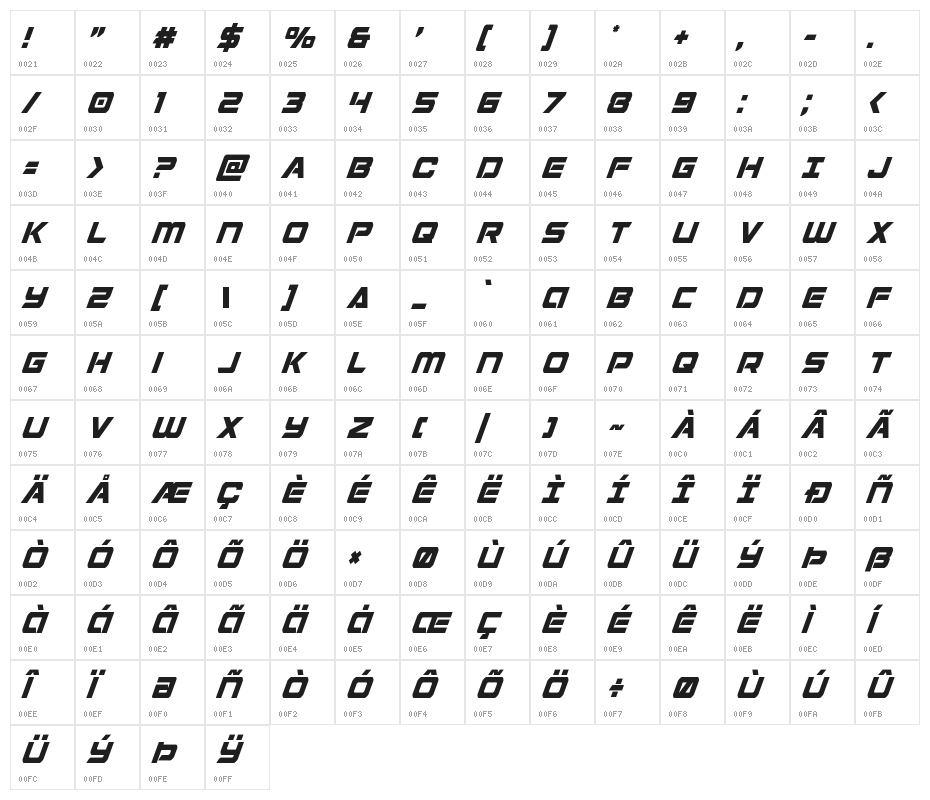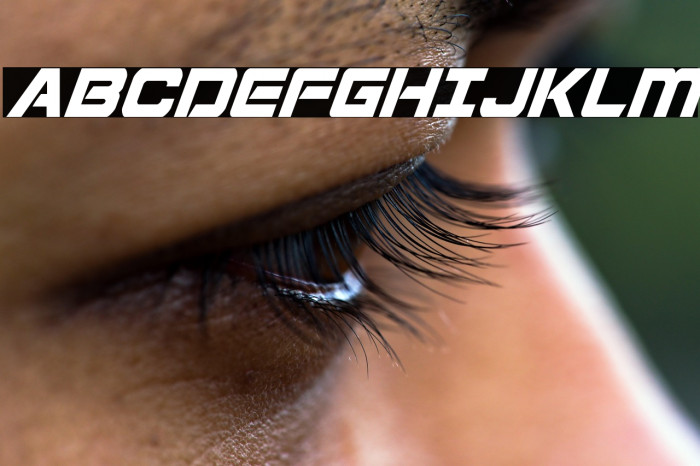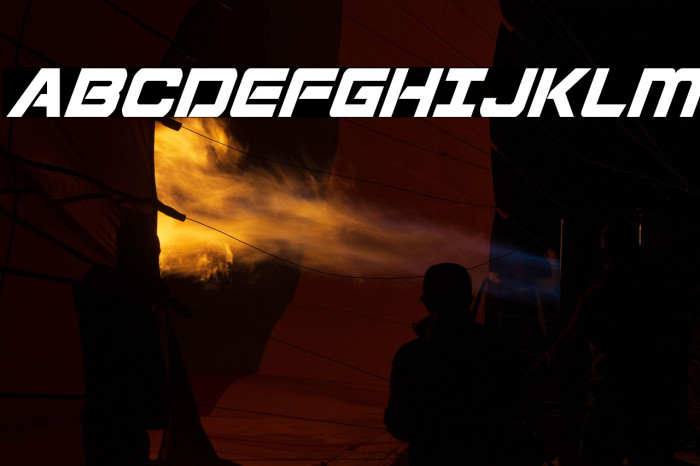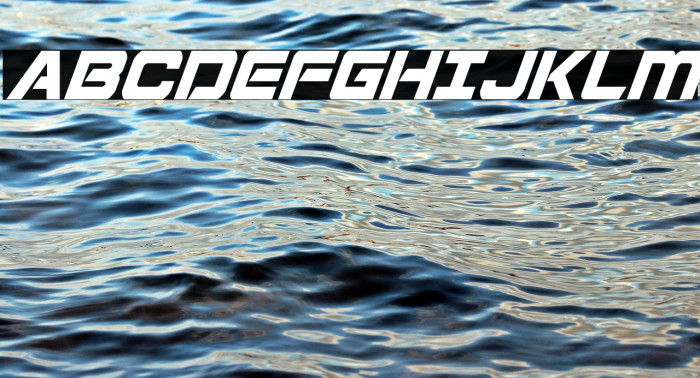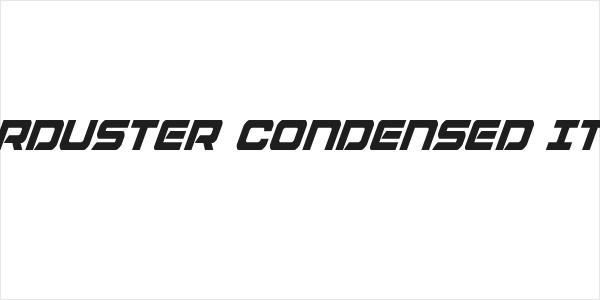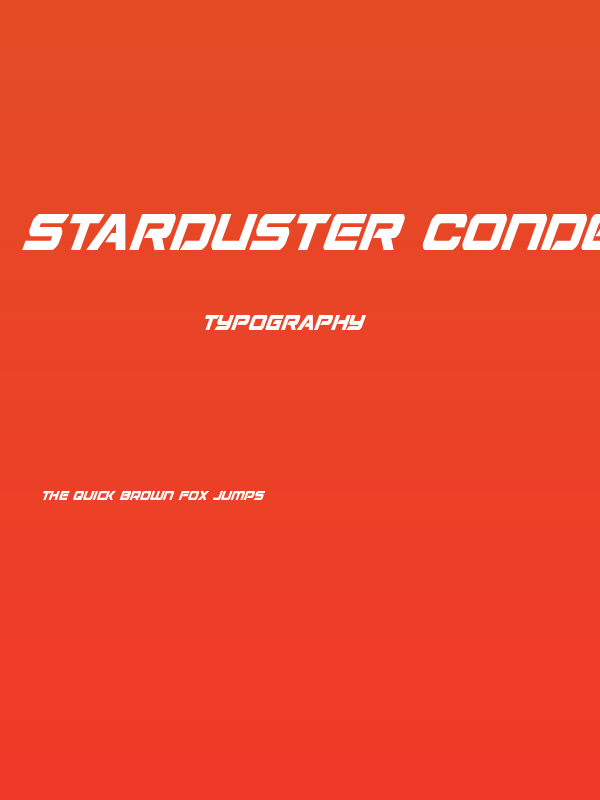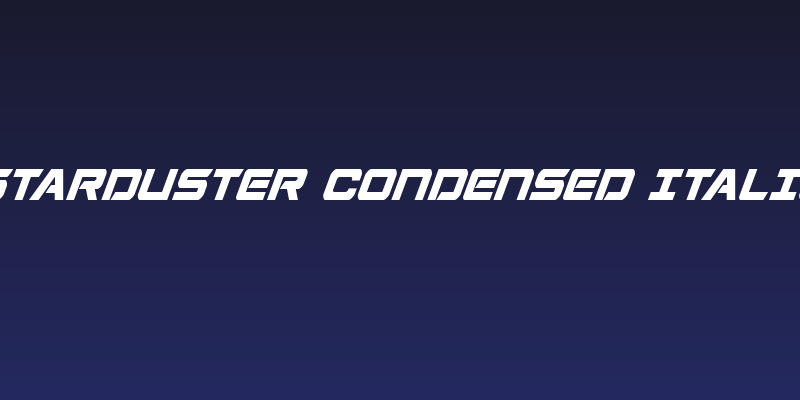
Starduster Condensed Italic Font
Starduster Condensed Italic Description
This font features a dynamic and futuristic design with a condensed and italicized style. The characters are bold and angular, giving a sense of speed and movement. The uppercase and lowercase letters maintain a consistent slant, enhancing the italic effect. The numerals are equally bold and follow the same angular design, ensuring uniformity across the font. Special characters are included, matching the overall aesthetic with sharp edges and a modern flair. This font is ideal for projects that require a strong, impactful presence.
| Proposed Projects | Ideal for sci-fi themed designs, video game titles, tech branding, and dynamic posters. |